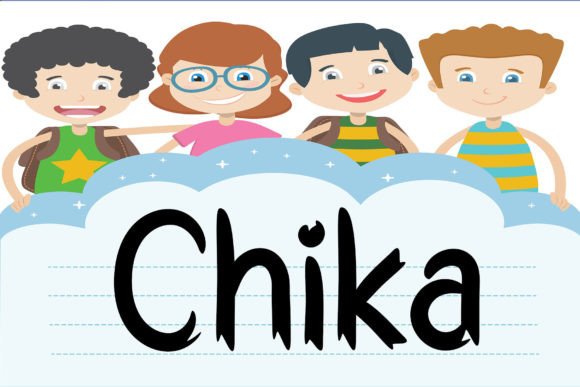
Introducing Chika Font, a breathtaking decorative font designed by Flower. If you're looking for a font that will add a touch of beauty and elegance to your designs, Chika is the perfect choice. Whether you're working on wedding invitations, greeting cards, billboards, logos, business cards, or any other design project, this font will elevate your creations to a whole new level.
What sets Chika Font apart is its stunning handwritten style. Each letter is meticulously crafted, resulting in a font with a varied baseline that exudes authenticity. When you use Chika, your ideas will come to life, captivating your audience and leaving a lasting impression.
Imagine the enchanting elegance of Chika Font gracing your wedding invitations. Its delicate strokes and graceful curves will add a romantic and personal touch, setting the perfect tone for your special day. Your guests will be captivated by the beauty and uniqueness of your invitations, making them an unforgettable keepsake.
Greeting cards become works of art with Chika Font. Whether it's a birthday, anniversary, or holiday card, this font will infuse your heartfelt messages with warmth and charm. Your recipients will be touched by the thought and effort you put into creating such a beautiful and personalized card.
Billboards and logos demand attention, and Chika Font delivers. Its eye-catching style and exquisite details will make your brand stand out from the competition. With Chika, your message will be conveyed with elegance and professionalism, leaving a lasting impression on potential customers.
Business cards are an extension of your brand, and Chika Font will ensure that yours leave a lasting impression. Its unique and captivating style will make your contact information memorable, helping you make valuable connections and stand out in a sea of competitors.
Chika Font is not just a font; it's an experience. It brings your ideas to life and adds a touch of magic to your designs. Its carefully crafted letters create a sense of authenticity and make your creations more tangible and real.